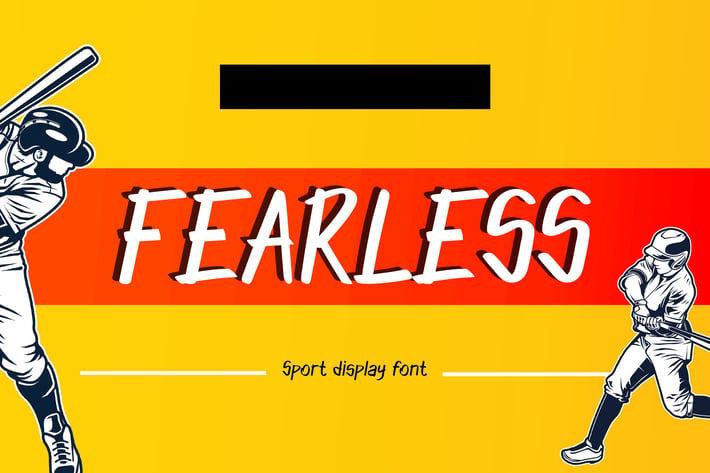
Fearless: The Urban Display Font for Sports
Introducing Fearless, an urban display font designed with the sports enthusiast in mind. This rebellious and daring font is perfect for anyone looking to make a bold statement with their design projects.
With its sharp edges and sleek lines, Fearless is the perfect addition to any protest banner, rebellious and extreme sport segmented magazine, poster, movie title, music poster, youtube cover, youtube thumbnail, and social media page covers. Its robust design will grab any viewer's attention and leave a lasting impression.